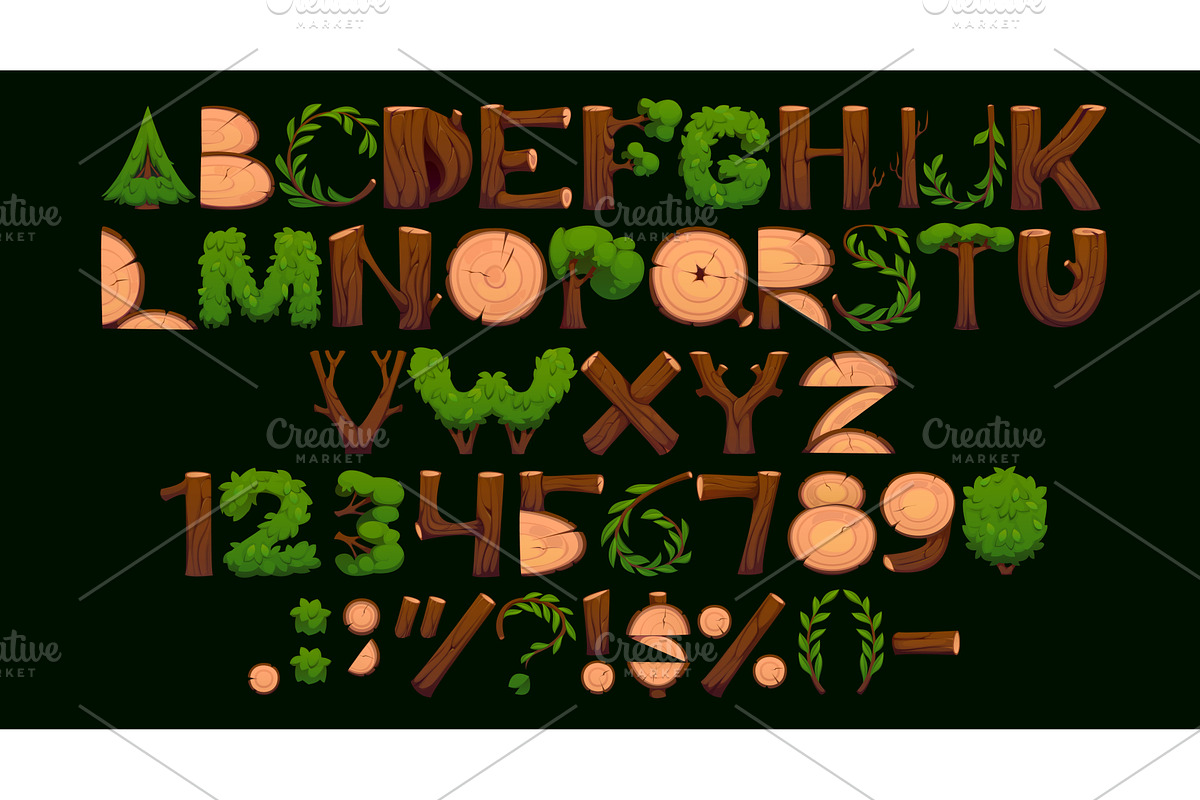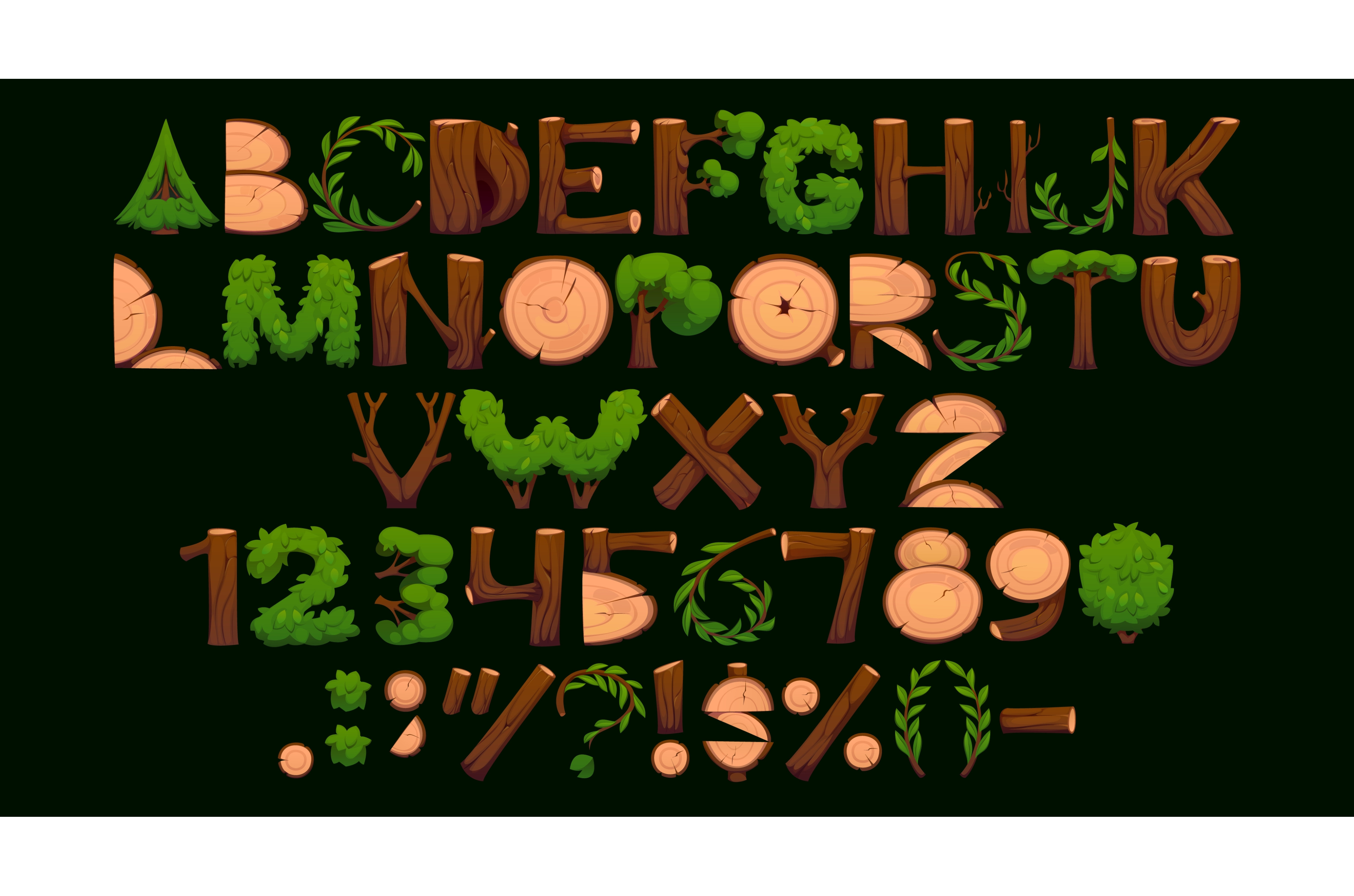
Cartoon wooden log font, wood stump
Cartoon wooden log font, wood stump and bush typeface, timber type letters, forest trunk alphabet with tree inspired leafy and bark textures. Vector eco themed, nature or environmental abc script